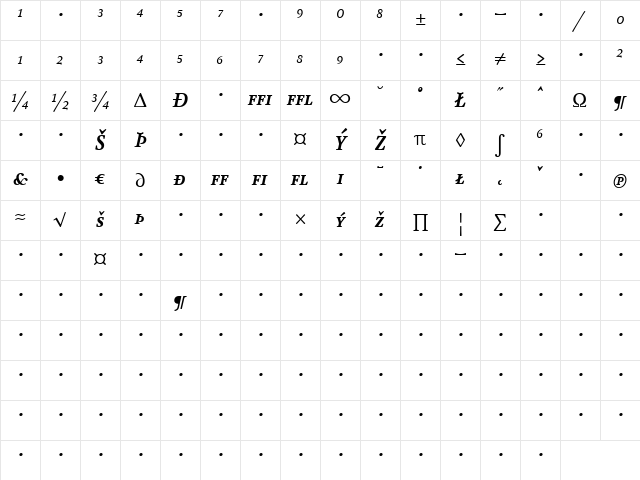
AtmaSerifExp-BoldItalicSC carries the refined structure of traditional serif typography, with bracketed terminals and considered proportions that communicate credibility and craft. The slanted form adds forward momentum and visual energy. Its bold stroke weight gives it real presence on the page.